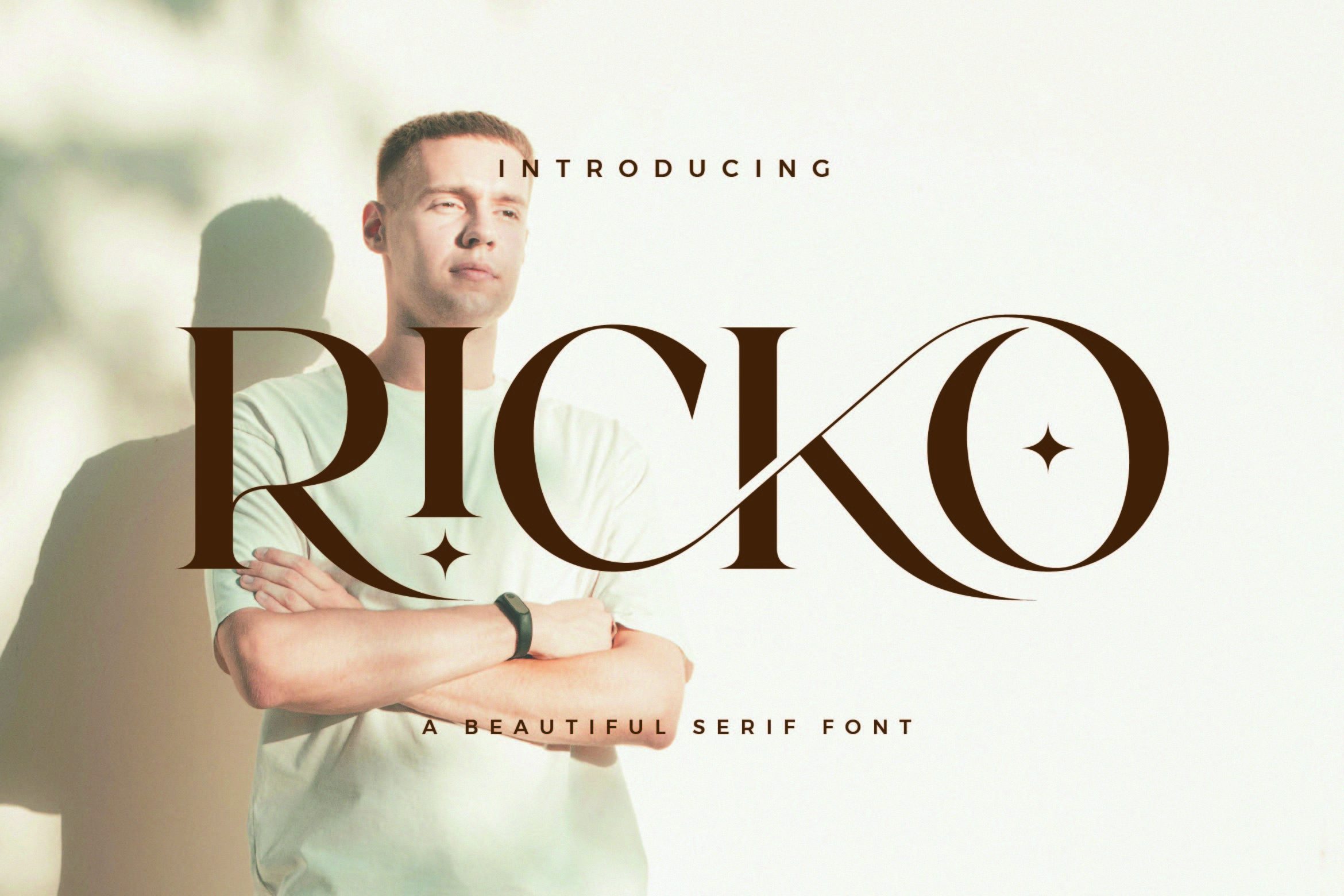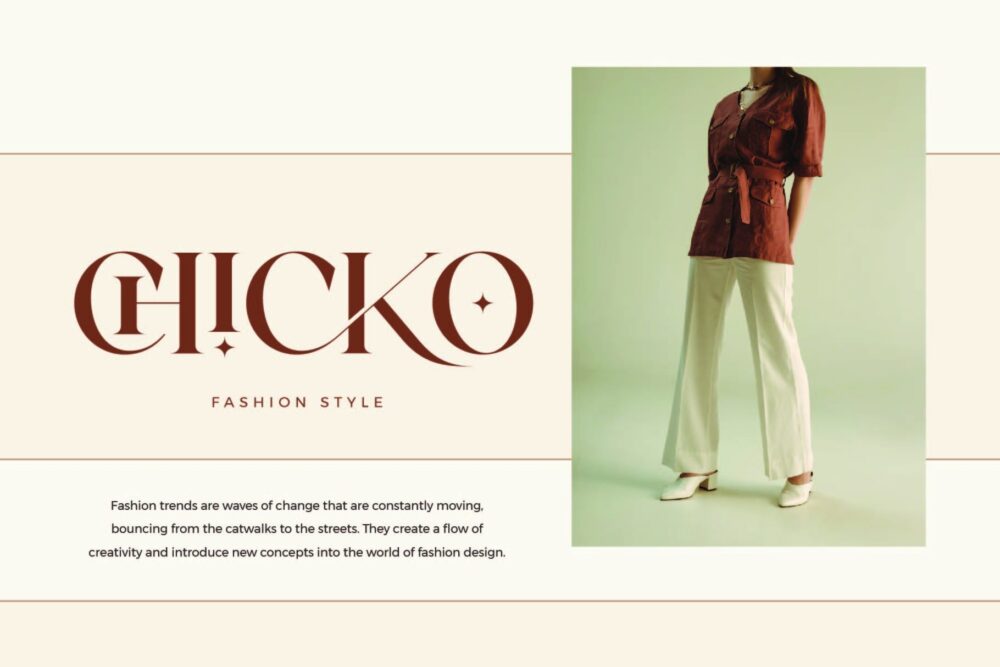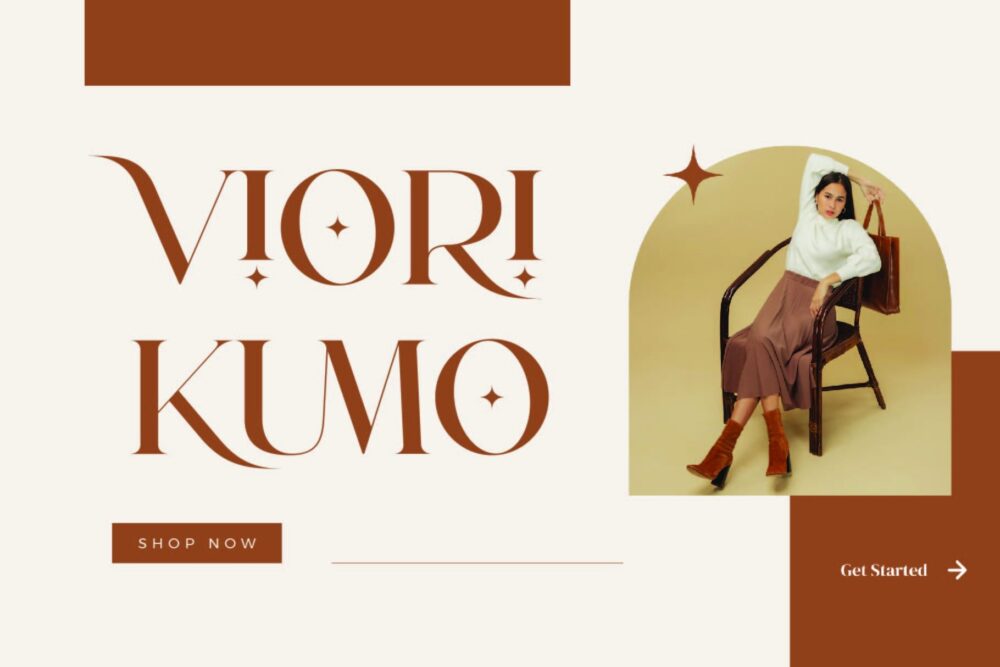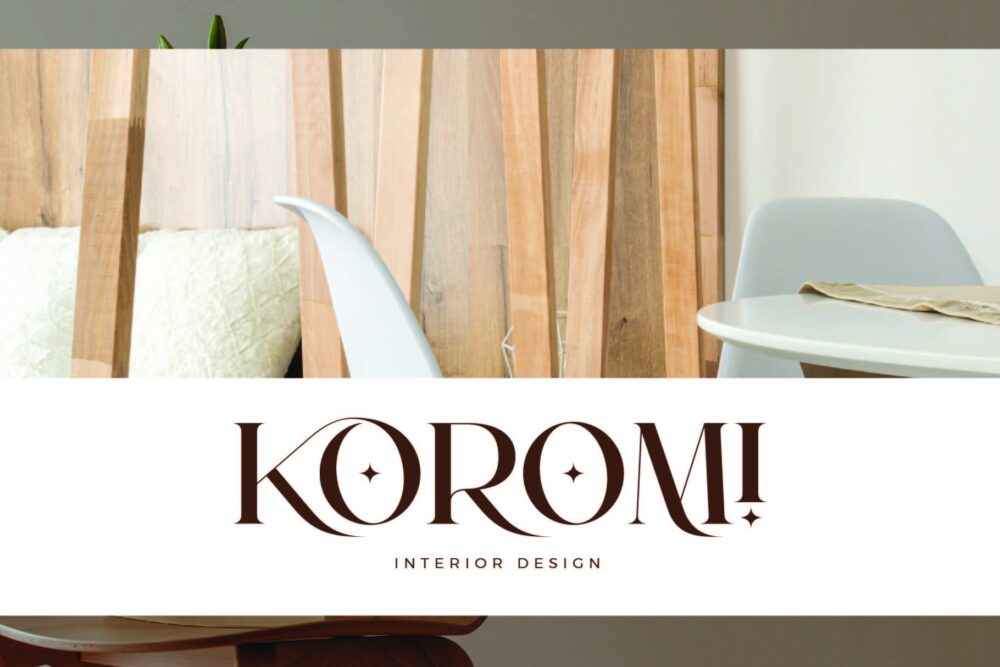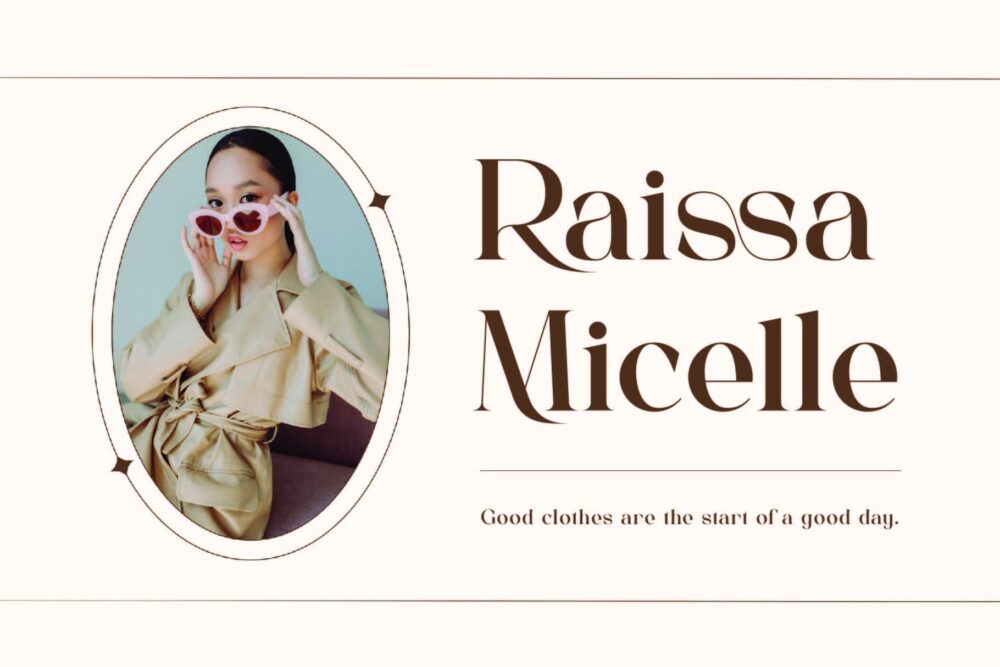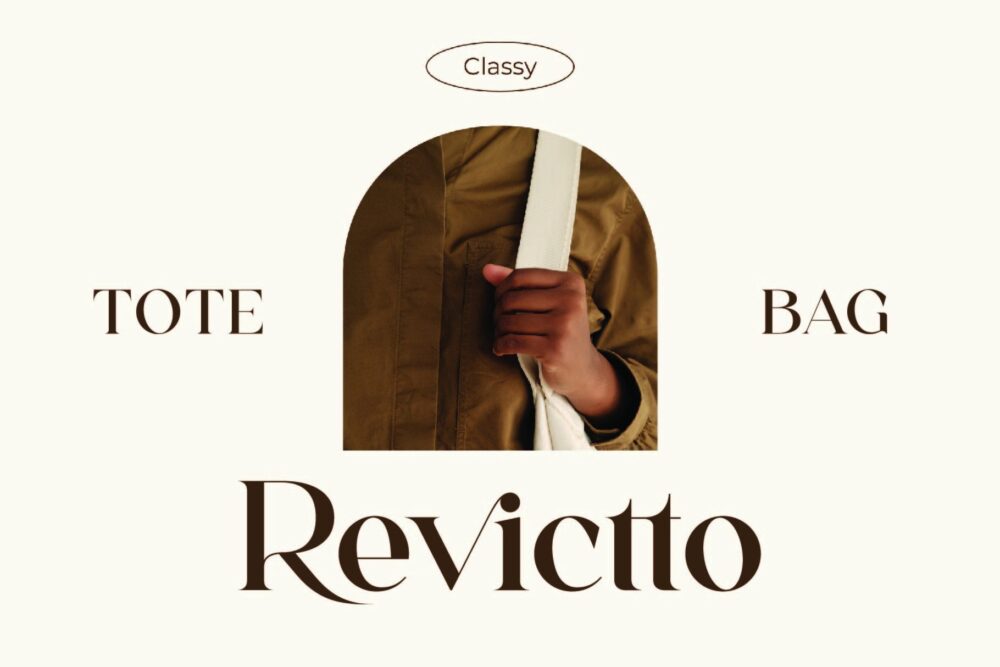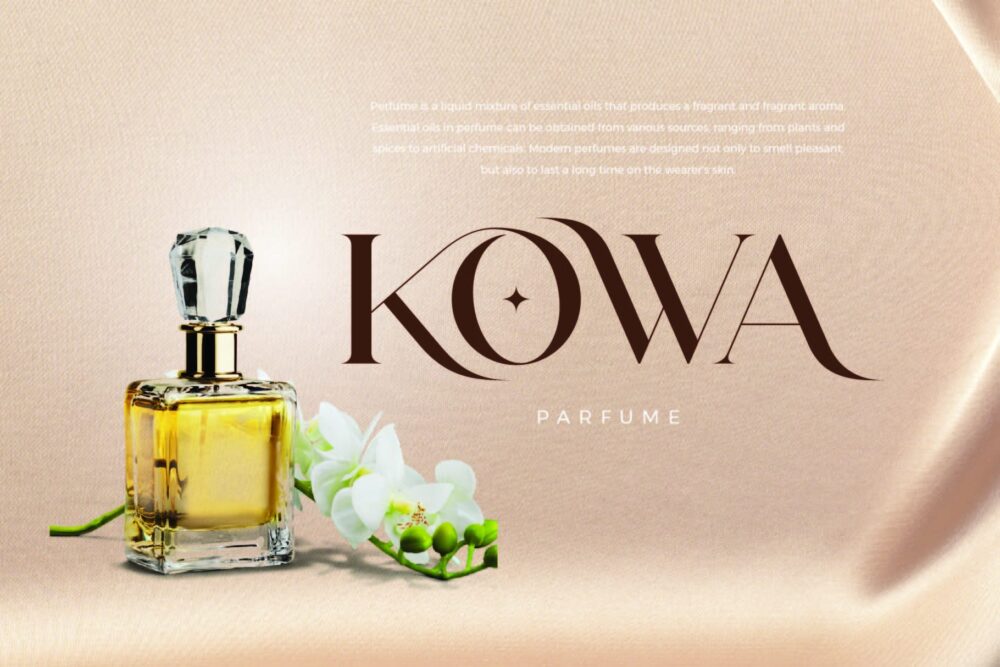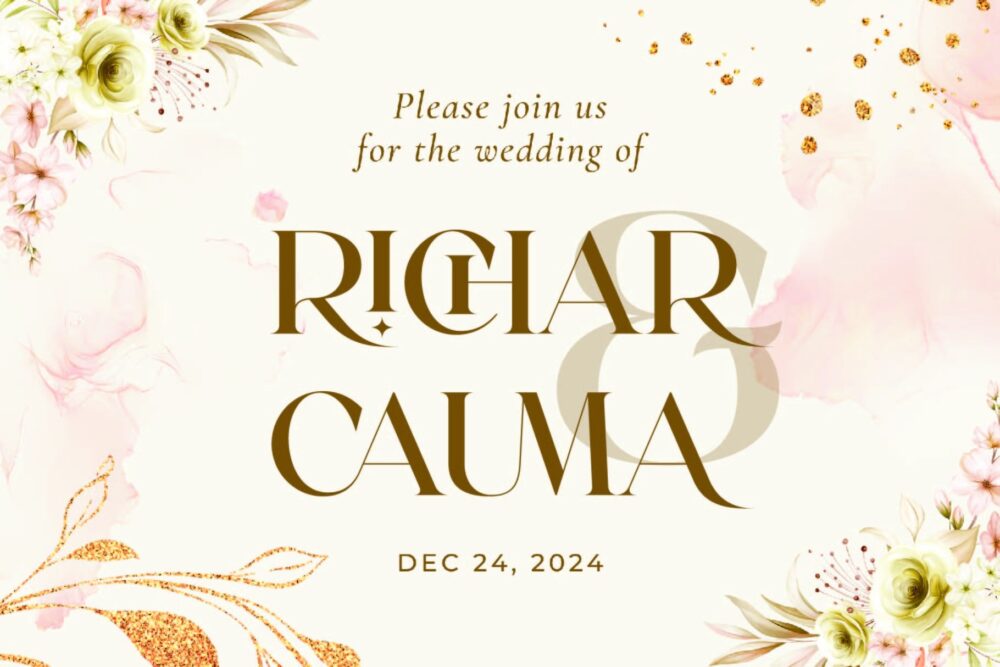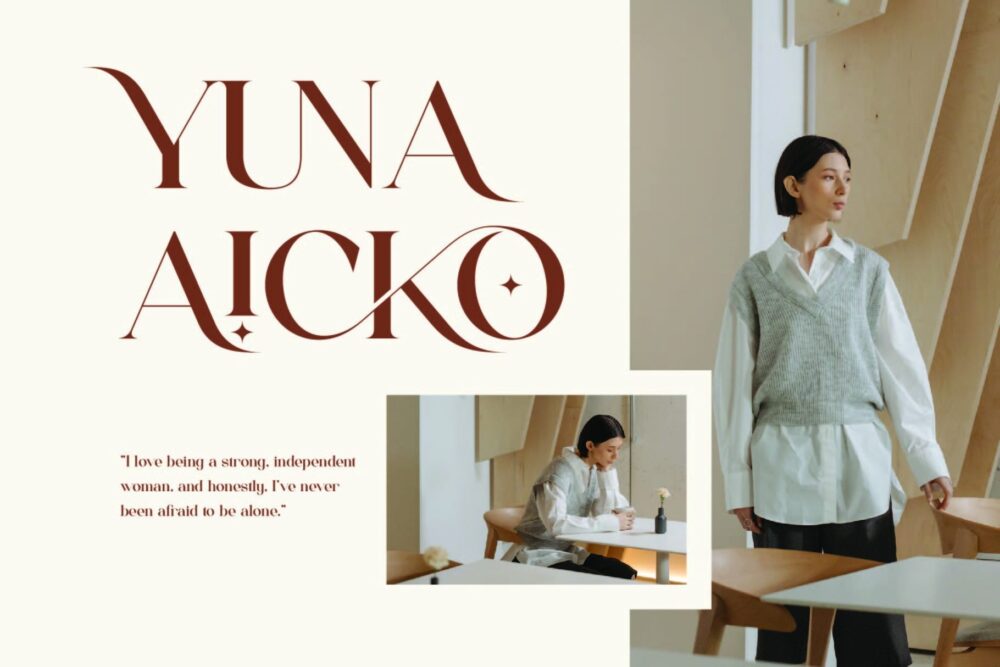
Beautiful Serif Font
Ricko
Ricko Stylish Ligature Typeface, inspired by the famous minimalist logo perfect for the purposes of designing templates, brochures, videos, advertising branding, logos and more.
Ricko – Beautiful Serif Font